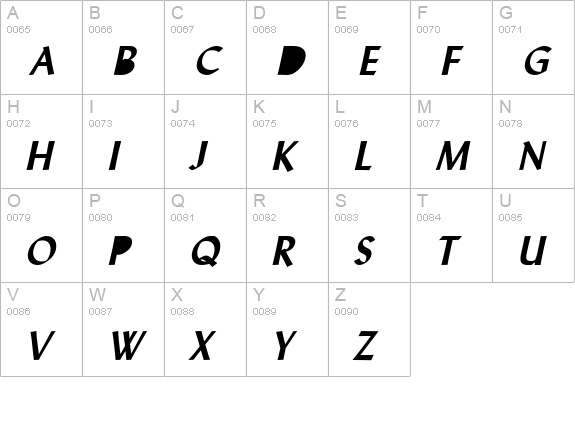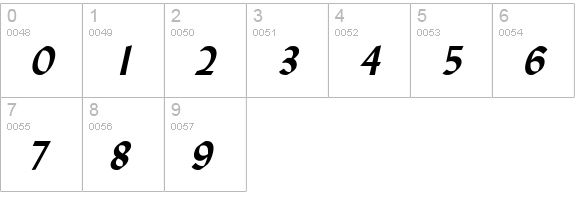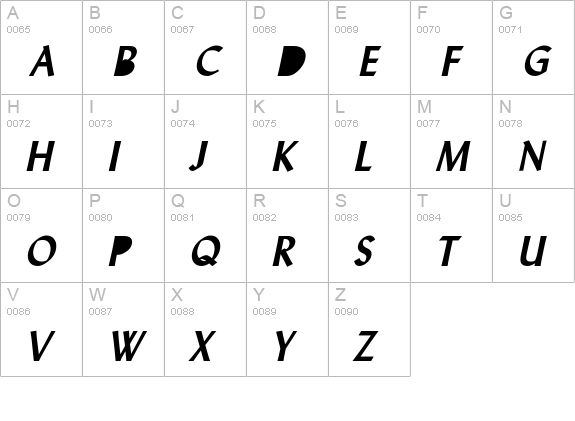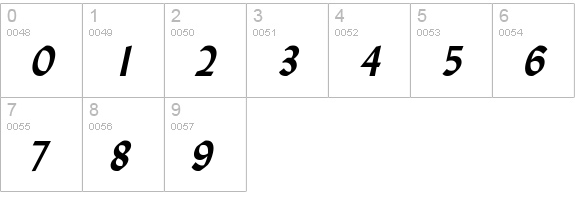
Lynda Bold Italic is a strong, high-contrast, italic variant in the Lynda typeface family \xE2\x80\x94 well suited to headlines, attention-grabbing titles, and strong calls-to-action.
Introducing Lynda Bold Italic font - a versatile and modern typeface that exudes elegance and sophistication. With its bold strokes and sleek italics, this font is perfect for creating eye-catching designs that demand attention. Whether you're designing a logo, website, or any other creative project, Lynda Bold Italic font will elevate your work to the next level. The best part? Lynda Bold Italic font is available for free download at FontsMarket.com, making it accessible to designers and creatives of all levels. Don't miss out on the opportunity to add this stunning font to your collection and enhance your projects with its distinctive charm and flair. Download Lynda Bold Italic font today and let your creativity shine!